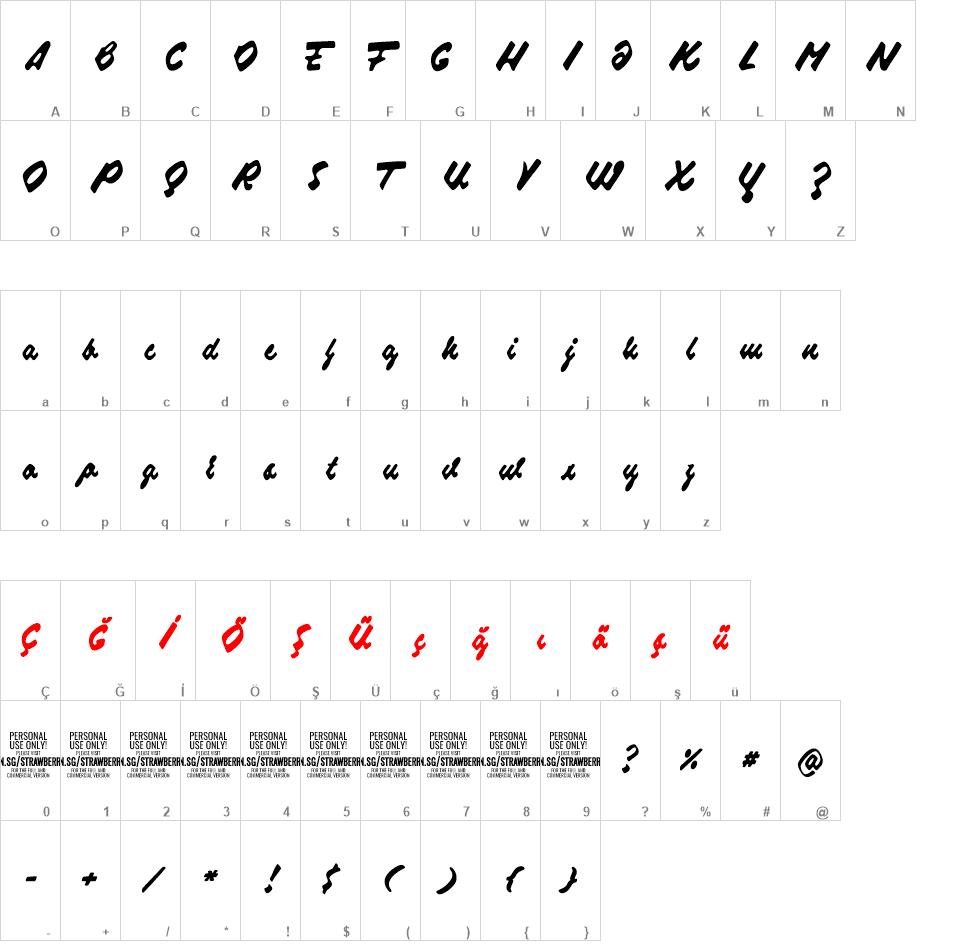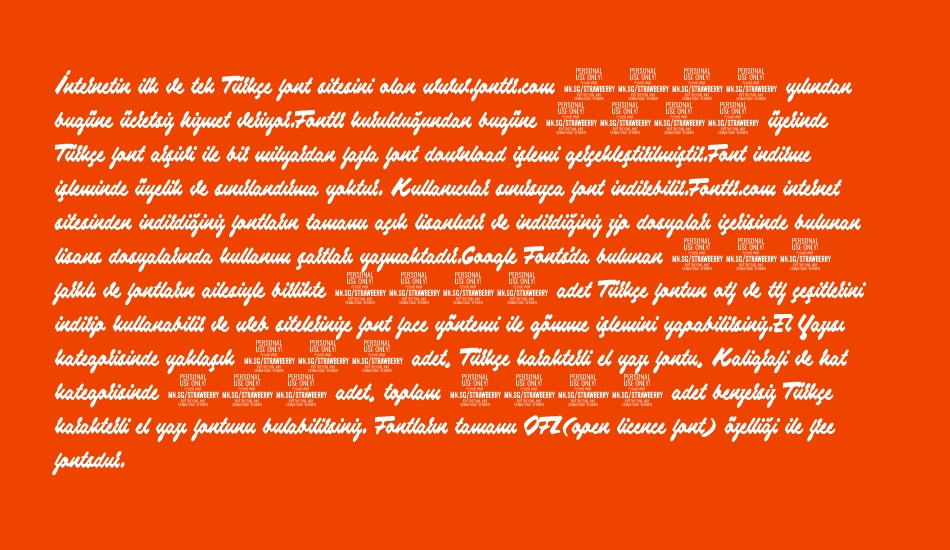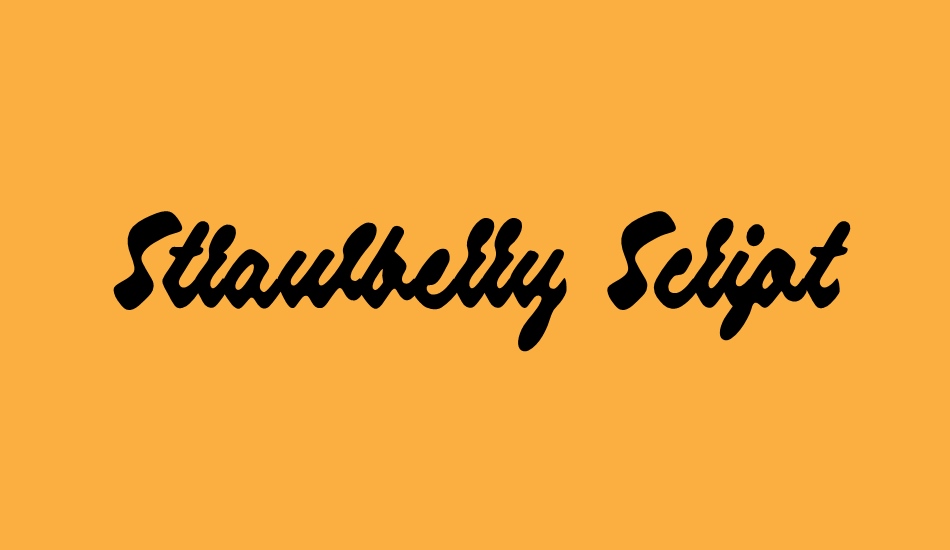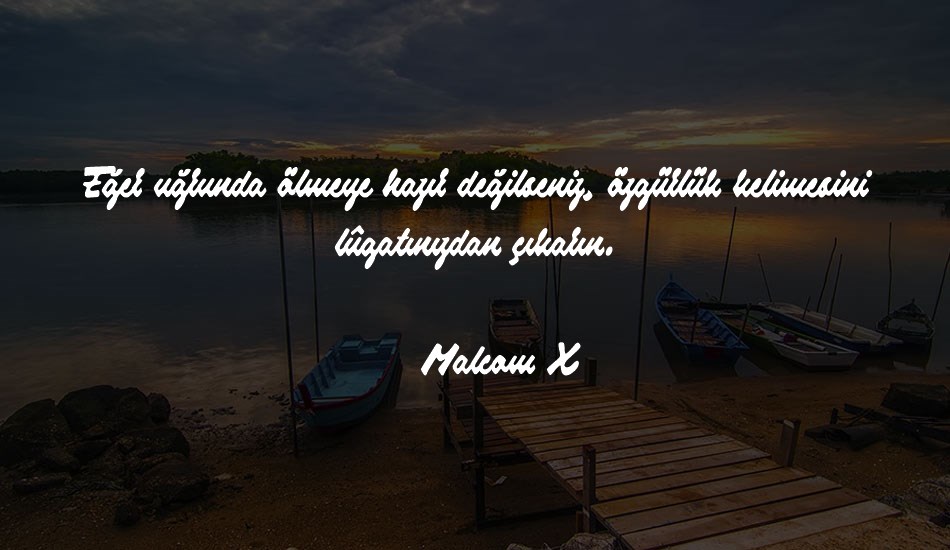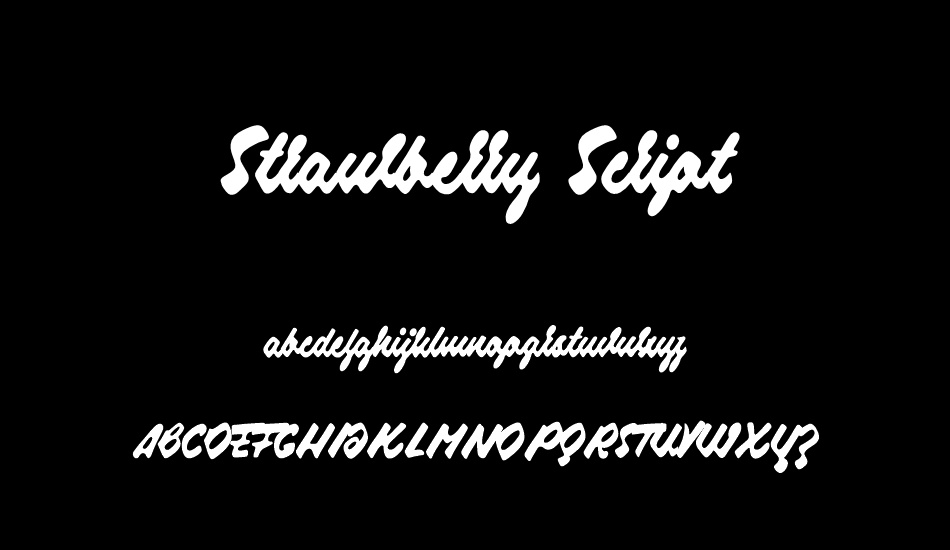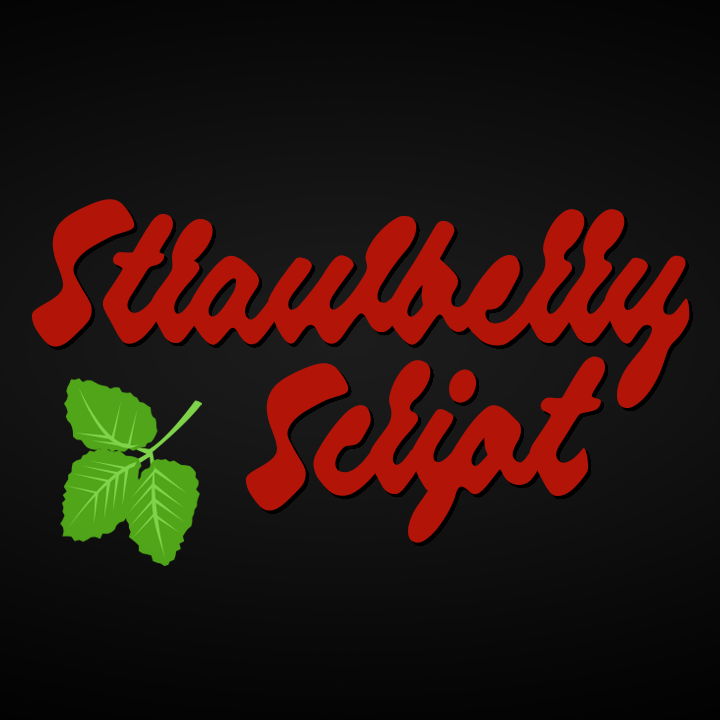
Strawberry Script font
Strawberry Script is a stylish and characteristic script typeface.
It supports hundred of Latin languages, and has several ligatures to maximize the letters' flow.
The font is designed and created by Noah Kinard and M?ns Greb?ck.